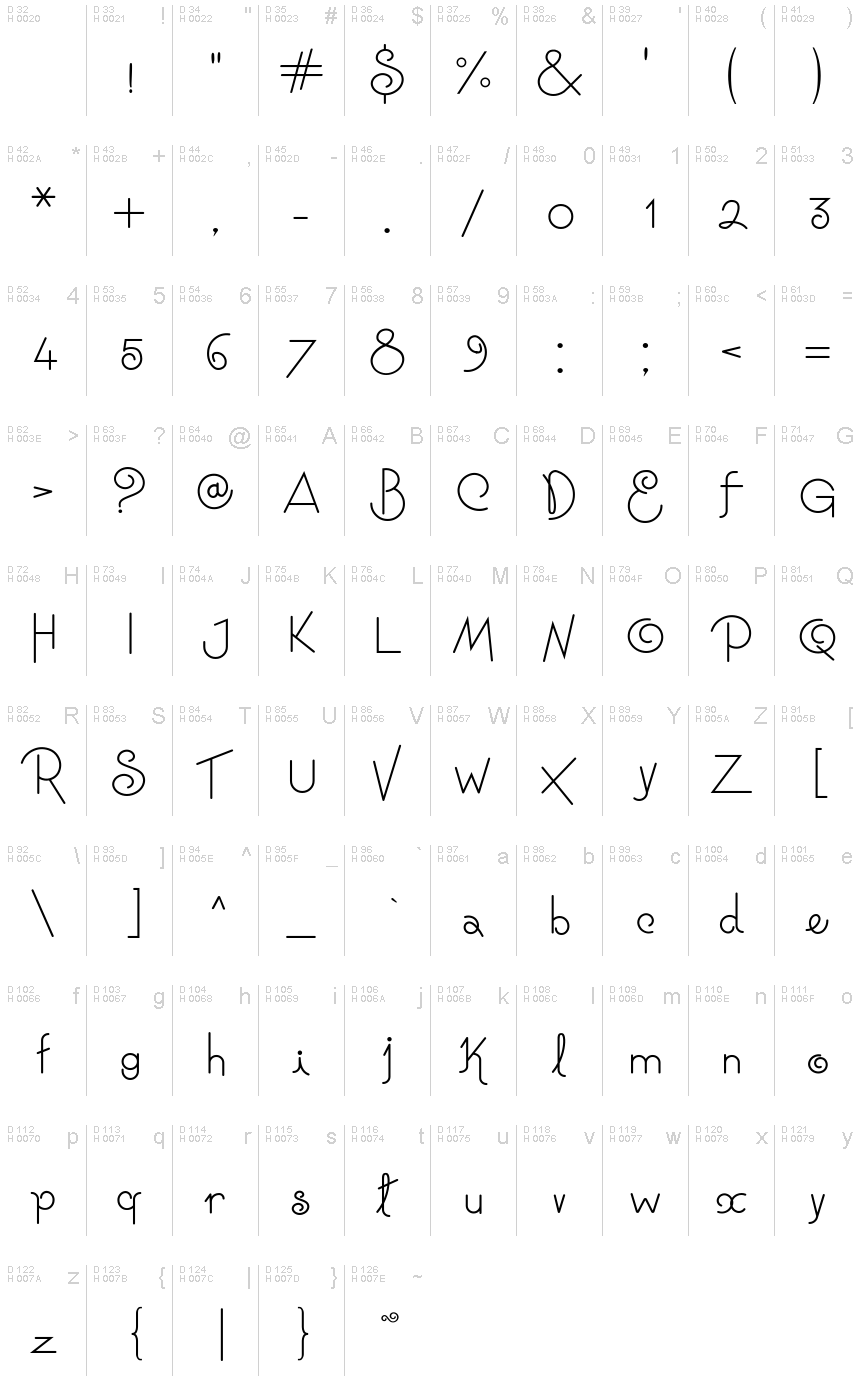
Niagara Faults
Niagara Faults is a captivating handwritten font that exudes a sense of effortless elegance.
Designed by Galdino Otten Fonts, this light-weight typeface boasts a fluid, natural rhythm that seamlessly blends the organic beauty of handcrafted calligraphy with the precision of digital type. Its distinctive letterforms, marked by soft, flowing strokes and subtle variations, lend an air of rustic charm and warmth to any design.
Niagara Faults is a versatile choice, equally suited for editorial layouts, packaging, branding, and more, where a touch of handmade allure can elevate the overall aesthetic.
Designed by Galdino Otten Fonts, this light-weight typeface boasts a fluid, natural rhythm that seamlessly blends the organic beauty of handcrafted calligraphy with the precision of digital type. Its distinctive letterforms, marked by soft, flowing strokes and subtle variations, lend an air of rustic charm and warmth to any design.
Niagara Faults is a versatile choice, equally suited for editorial layouts, packaging, branding, and more, where a touch of handmade allure can elevate the overall aesthetic.